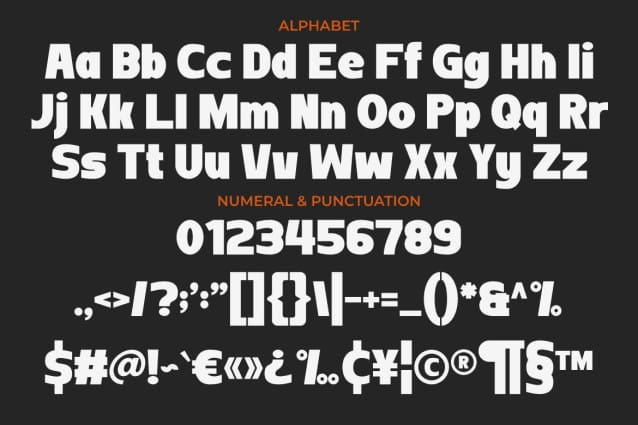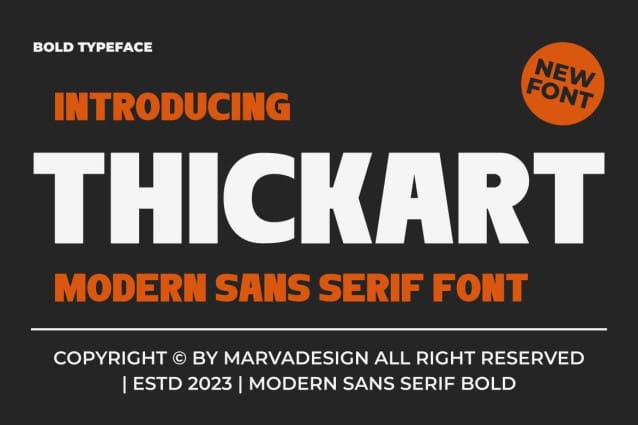
Thickart Font
Thickart Font – A Modern Sans Serif Font authentic display font. The font is suitable for any branding project like logo, Template Design, Product and many more. outstanding in a wide range of contexts.